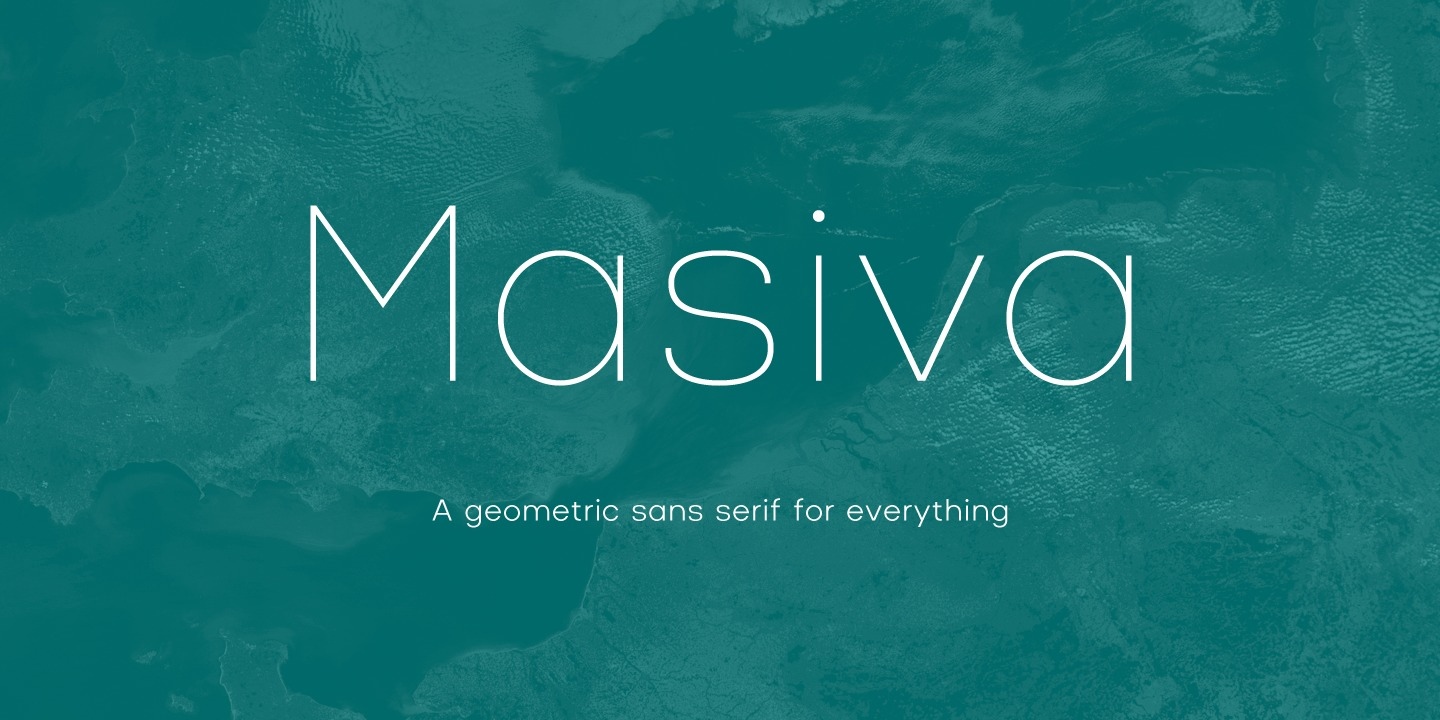
Masiva Font
Masiva Font is perfect for large-scale construction companies, massive infrastructure projects, substantial engineering firms, heavyweight manufacturing organizations, monumental architecture studios, and grand-scale development enterprises. Its imposing character makes it ideal for heavy machinery manufacturers, massive logistics companies, substantial concrete suppliers, monumental sculpture studios, heavyweight industrial services, and any project requiring overwhelming scale with massive impact and substantial presence appeal.
This font is exciting because it embodies the overwhelming power and substantial presence of massive-scale operations while delivering exceptional functionality for organizations handling enormous projects, substantial infrastructure, and the kind of heavyweight undertakings that require massive resources and monumental vision. The substantially crafted letterforms command attention with their sheer scale and presence, creating typography that feels appropriately massive for organizations operating at enormous scales.
The Masiva Font family typically includes Light, Regular, Medium, and Bold weights with massive alternates, substantial ligatures, and monumental elements that enhance its overwhelming personality. This comprehensive collection enables large-scale professionals to create commanding brand systems that maintain substantial credibility while offering flexibility for various massive applications requiring both overwhelming authority and contemporary industrial market positioning.
Whether you're developing identity systems for massive construction companies, creating materials for substantial infrastructure projects, or designing promotional content for heavyweight industrial services, Masiva Font Free Download delivers the overwhelming presence and massive appeal that resonates with audiences seeking substantial capabilities and monumental project execution. Its commanding presence ensures unforgettable brand recognition across digital platforms and print materials, making it perfect for websites, mobile applications, and industrial campaigns that celebrate massive scale, substantial engineering, and the transformative power of monumental construction with contemporary industrial standards and authentic heavyweight capability.